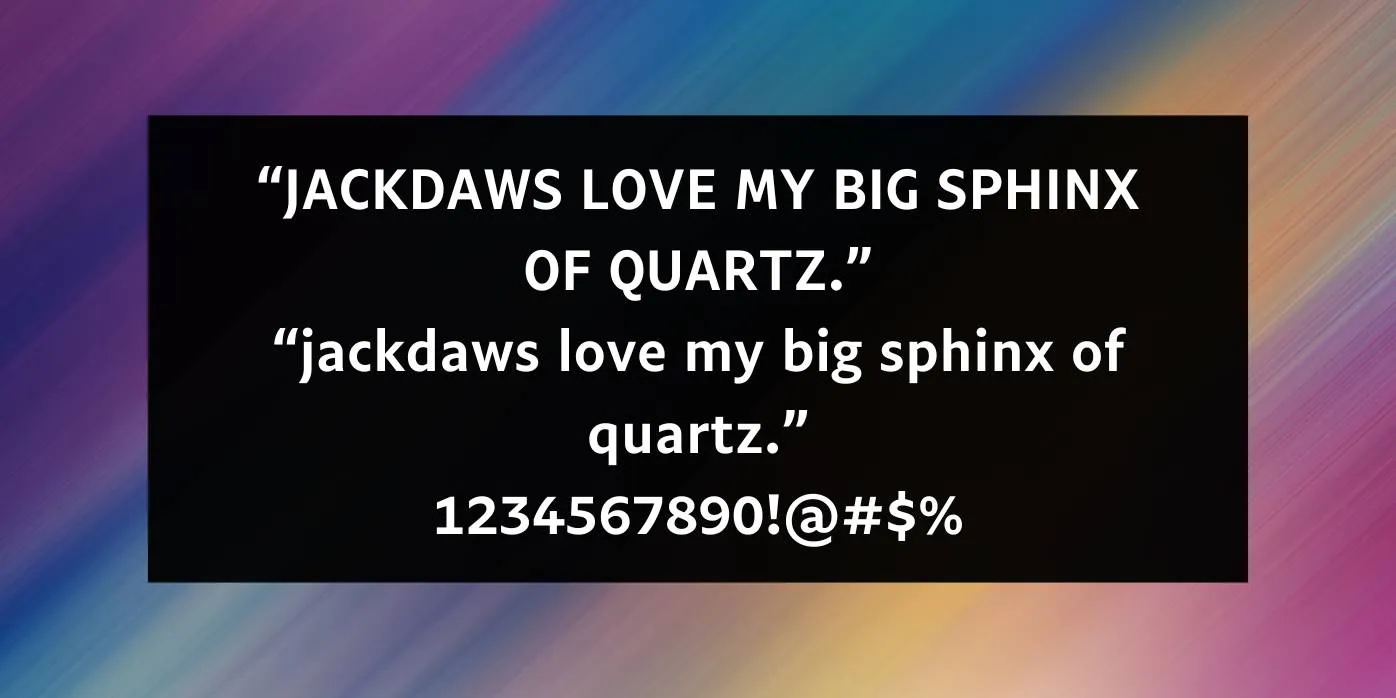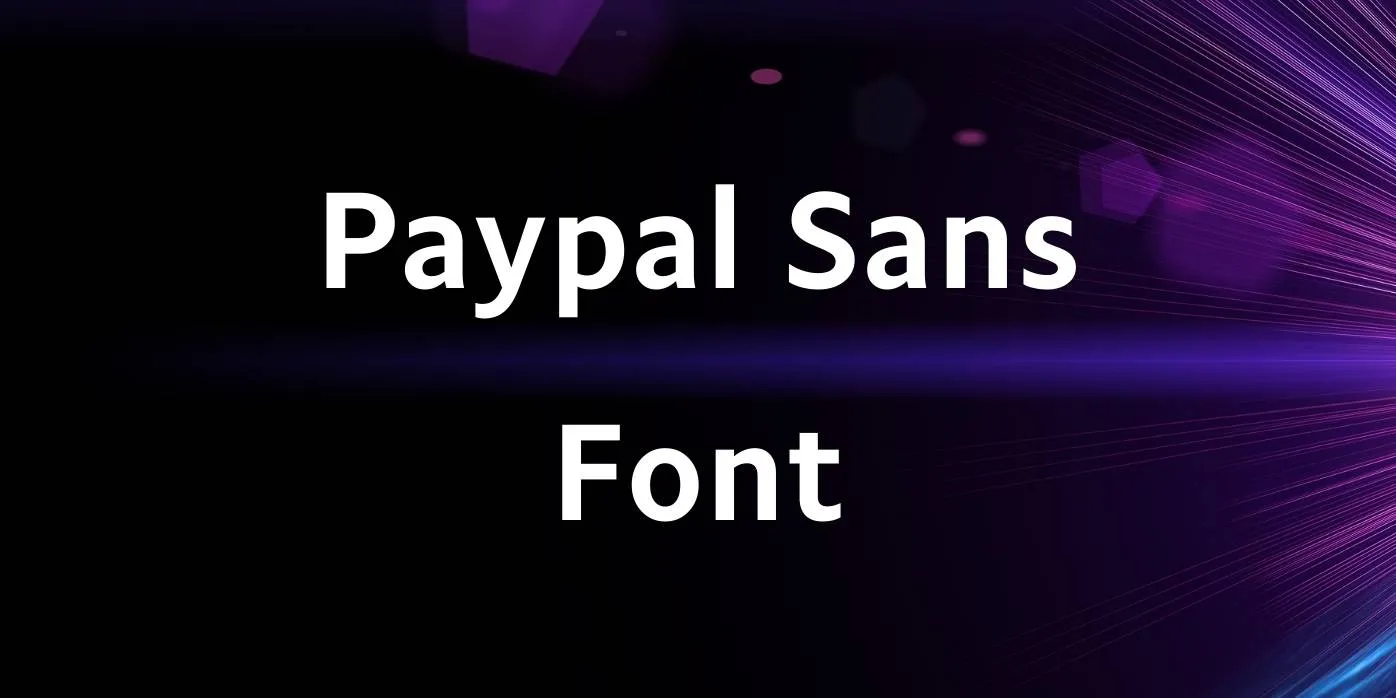
Paypal Sans Font
Klim Type Foundry designed this typeface. Paypal Sans Font is a sans serif typeface that comes in both Opentype format and TrueType format. This font structure has a very simple look, bold and very easy to read characters that contains uppercase, lowercase, glyphs, punctuation, and numerals. The generator tool will help you create a unique and customized this font for your website or blog.